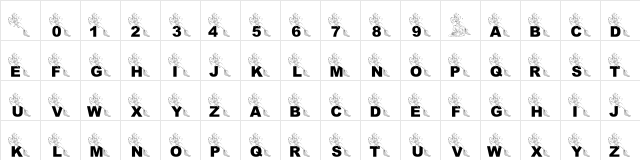
LMS Part Of The Font World Regular
Design Context for LMS Part Of The Font World Typeface
LMS Part Of The Font World is a composed and adaptable typeface that performs quietly and consistently across a wide range of design contexts.